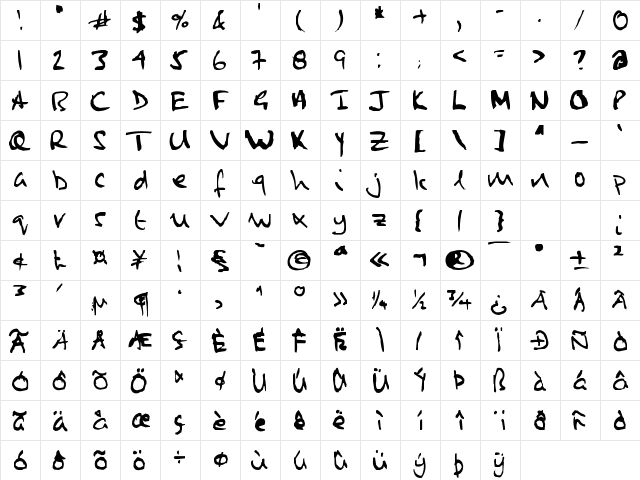
HandFont$- Regula Font Preview
HandFont$- Regula
HandFont$- Regula Font Details
| Style | Regula |
Design Context for HandFont$- Typeface
HandFont$- flows with the natural rhythm of handwritten lettering, making it ideal for designs that call for warmth and personal expression.
Font Pairing: Combine HandFont$- with a simple geometric sans for maximum contrast — the tension between flowing curves and clean structure is a classic typographic pairing.
Pro Tip: Pair HandFont$- with a clean sans-serif for supporting text. The contrast between fluid script and geometric structure creates an elegant typographic hierarchy.